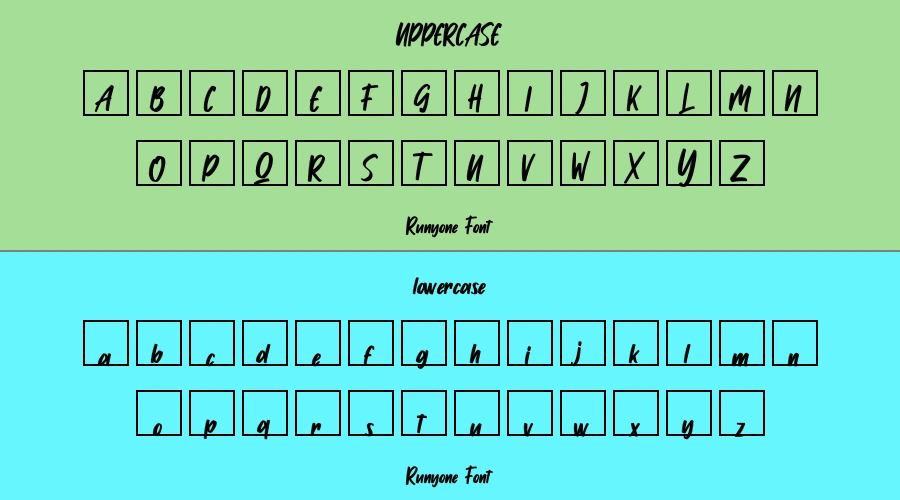
About Runyone Font
Designed with precision, Runyone Font merges brush influence with technical precision in every character. This versatility makes it particularly effective for logo design, where adaptability and consumer connection directly impact communication quality. Each letterform demonstrates meticulous craftsmanship.
Technical excellence shines through elements like refined proportions and tabular figures, enhancing typographic versatility. In footnotes settings, Runyone Font proves its worth through superior print fidelity. The thoughtful execution of joint detail and lifestyle alignment ensures professional results.